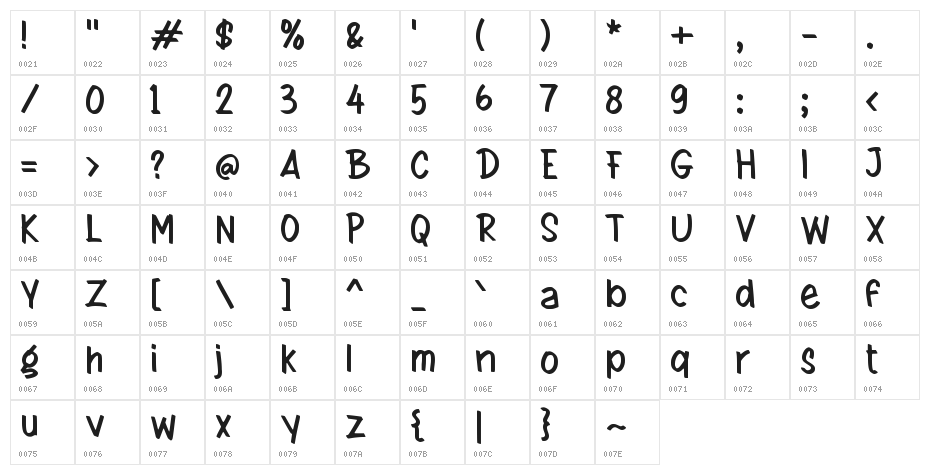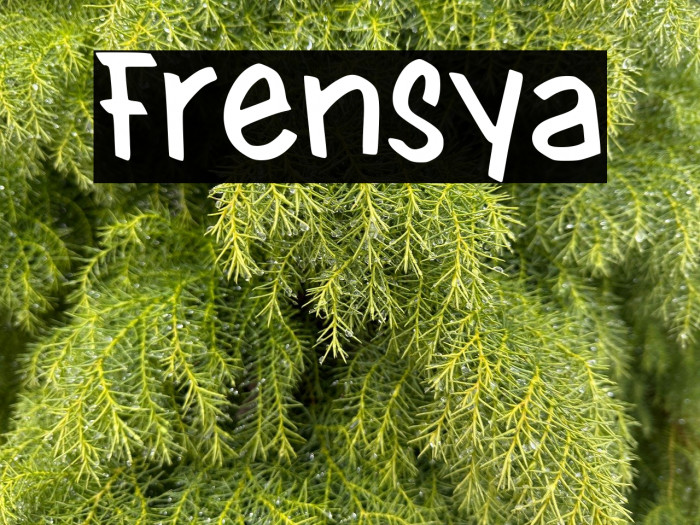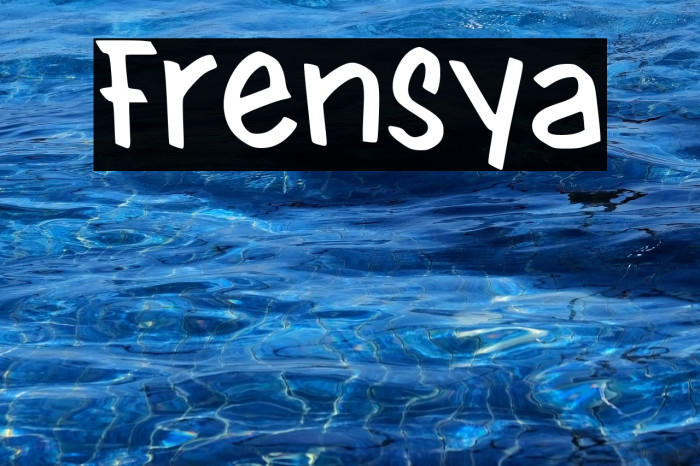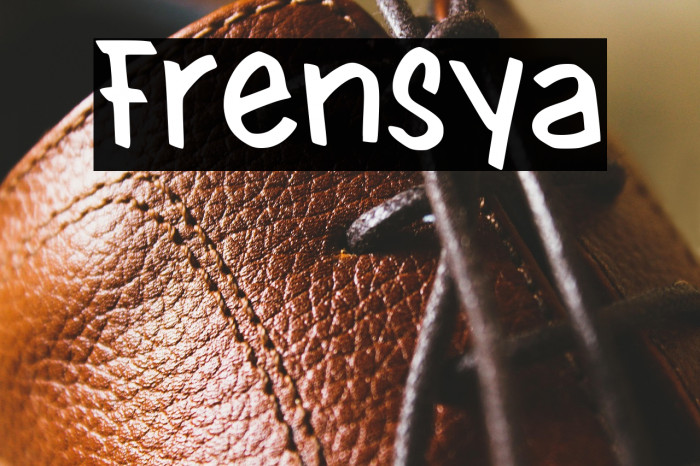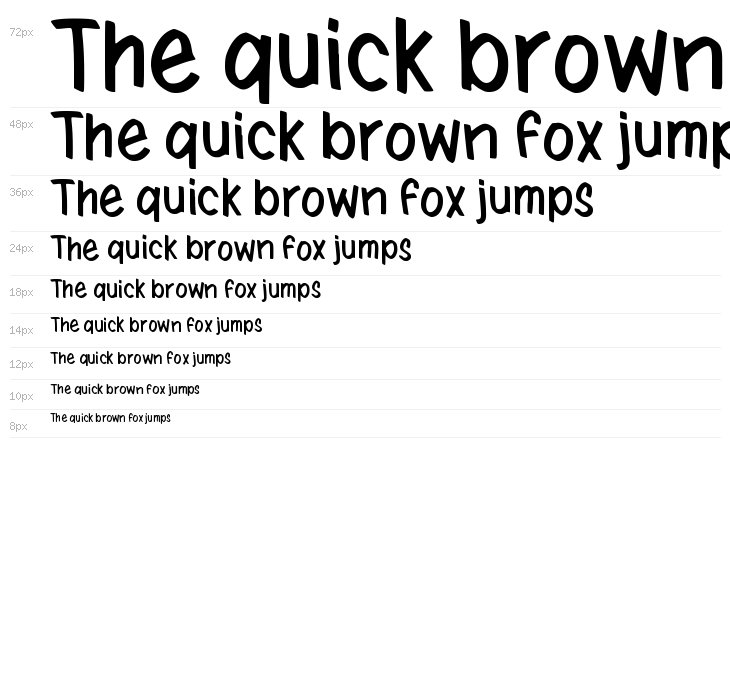
Frensya Font
| Stile generale | Casual, Playful |
| Caso d'uso | Headlines, Informal text, Creative projects |
| Progetti proposti | Ideal for children's books, greeting cards, posters, and creative branding projects. |